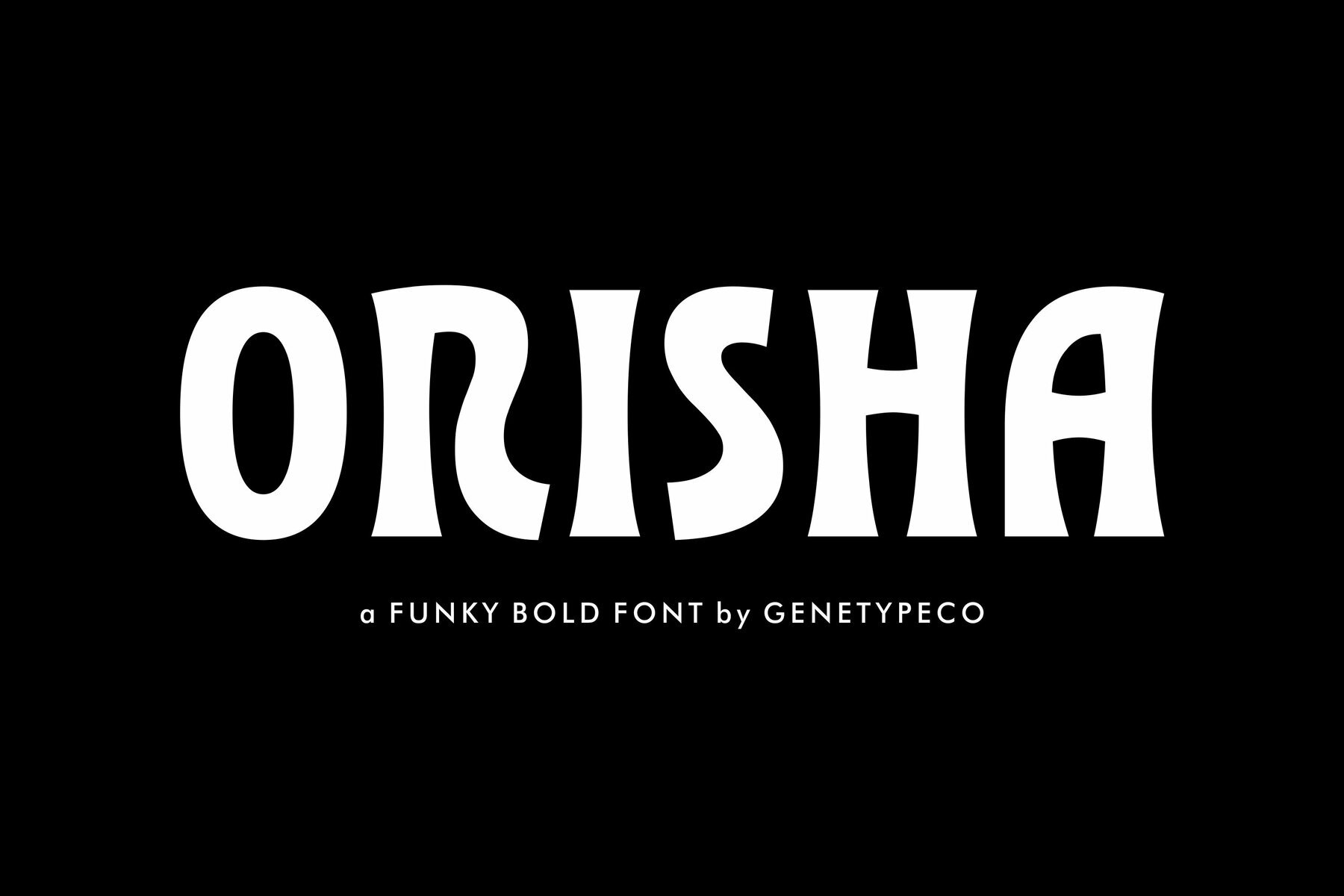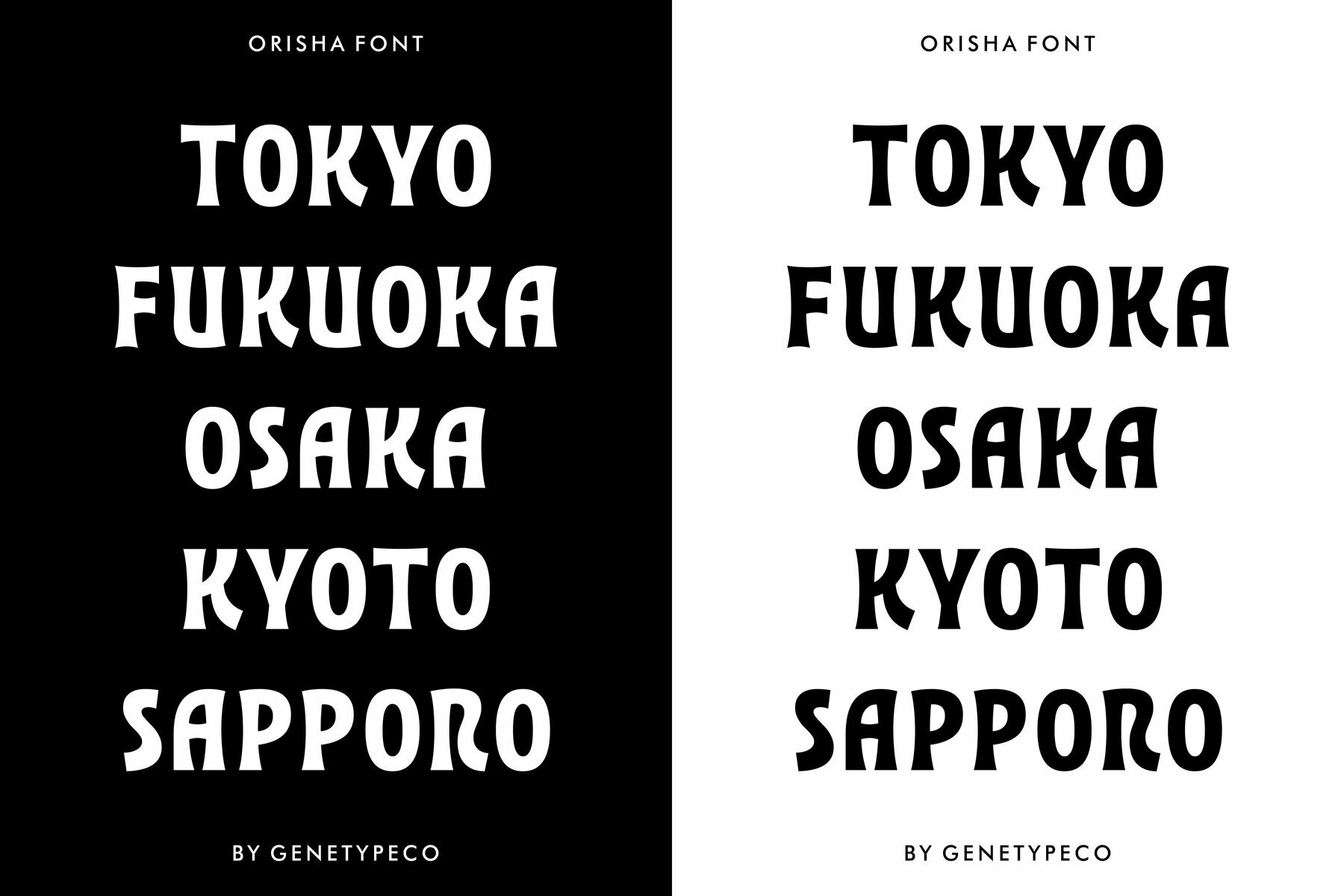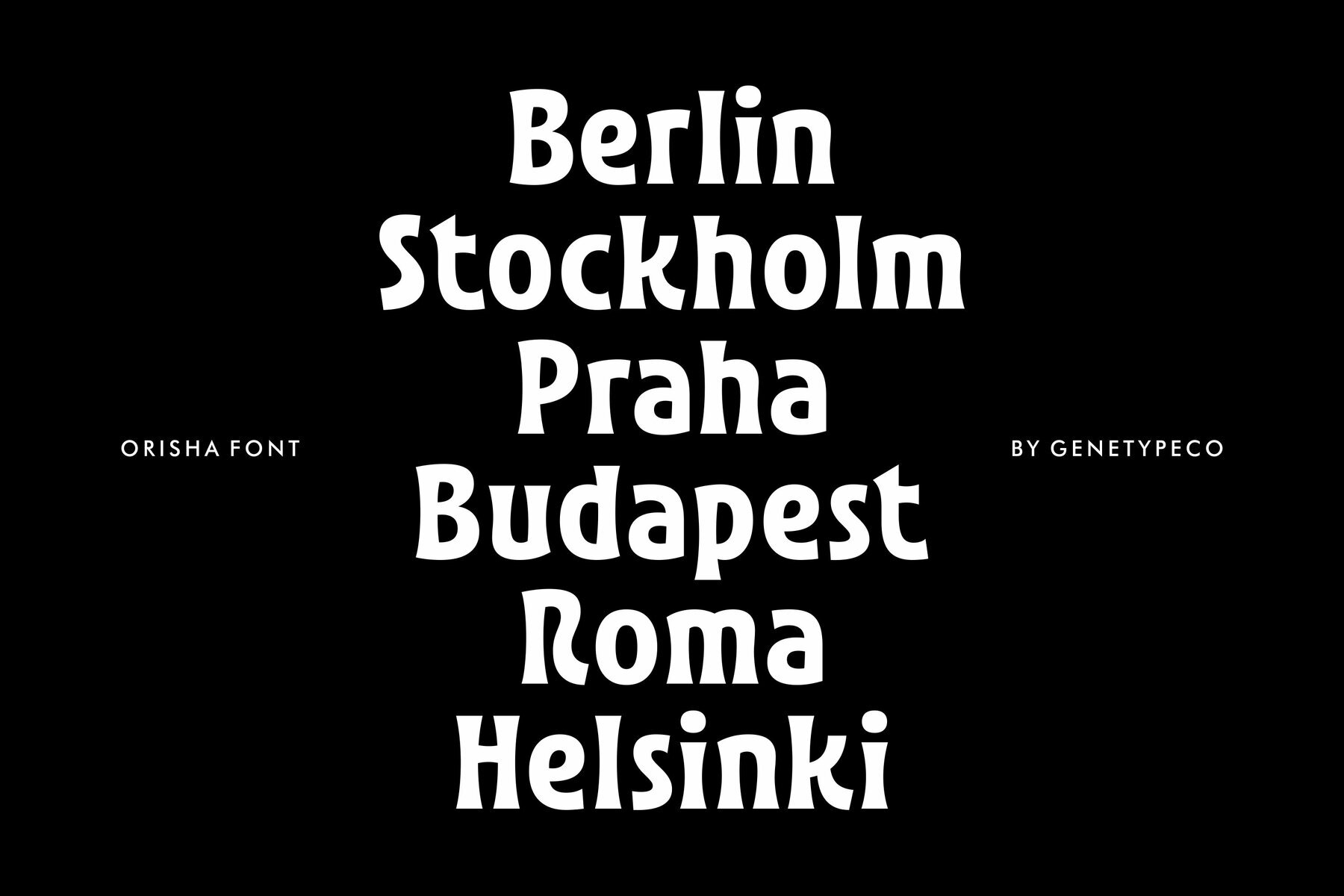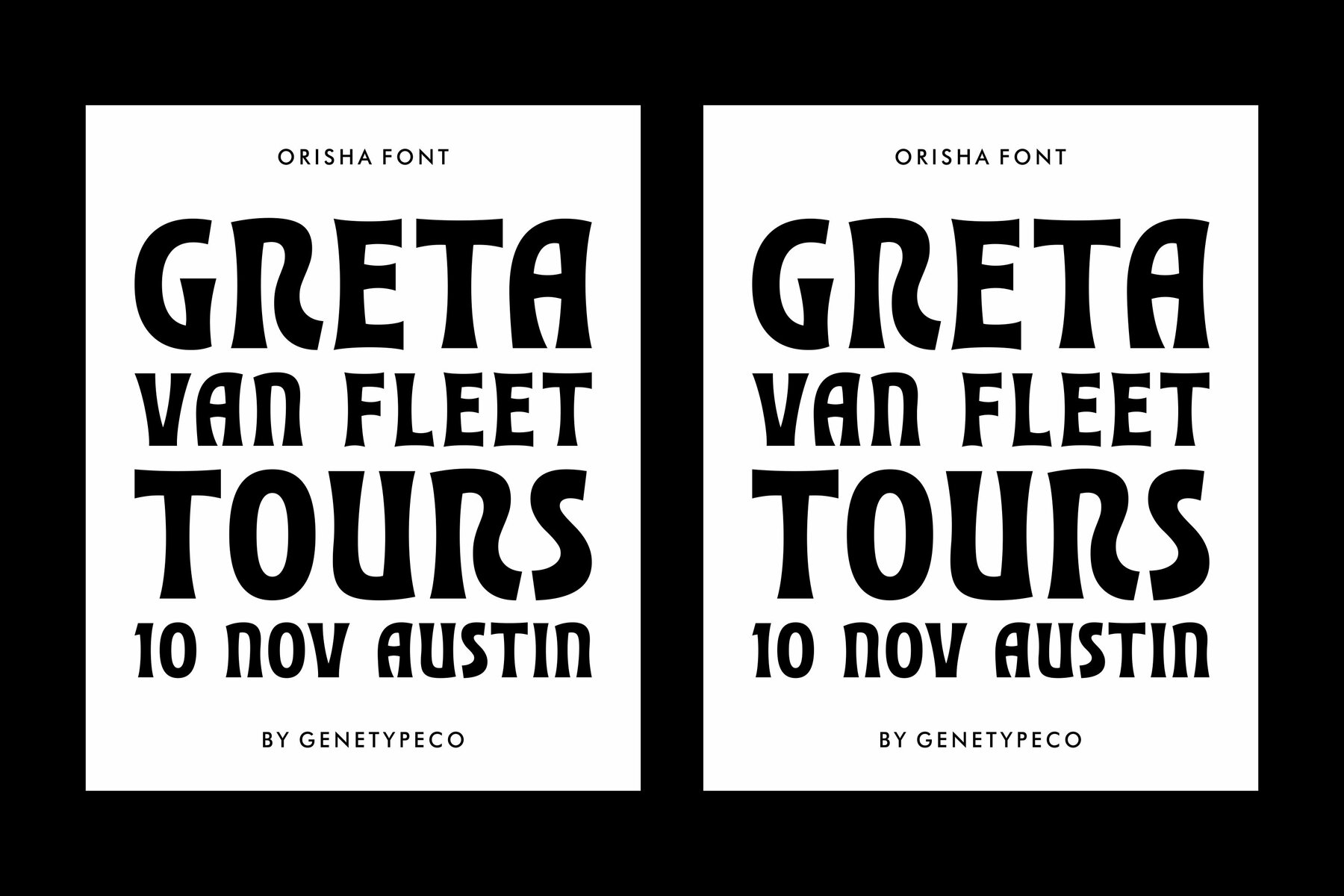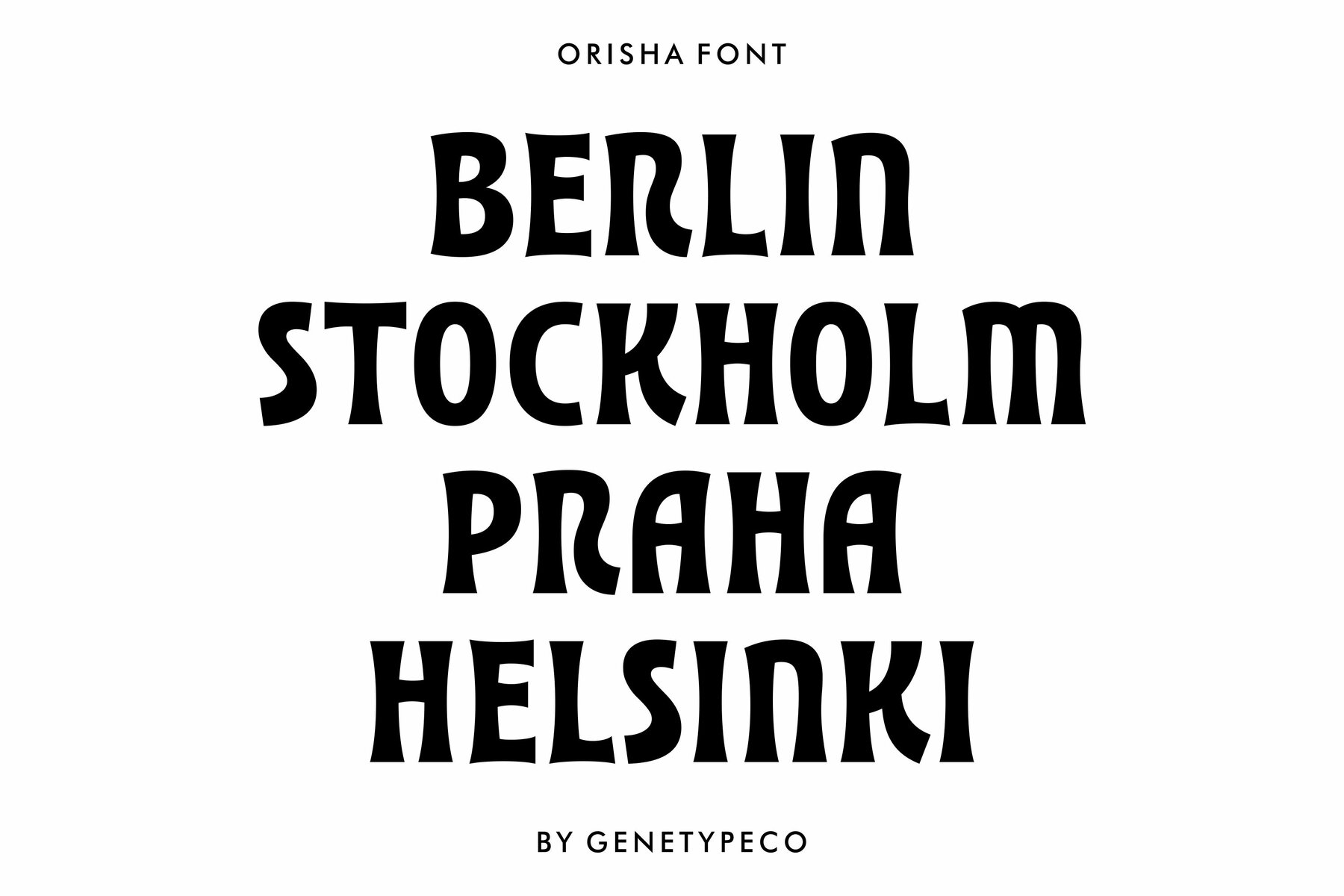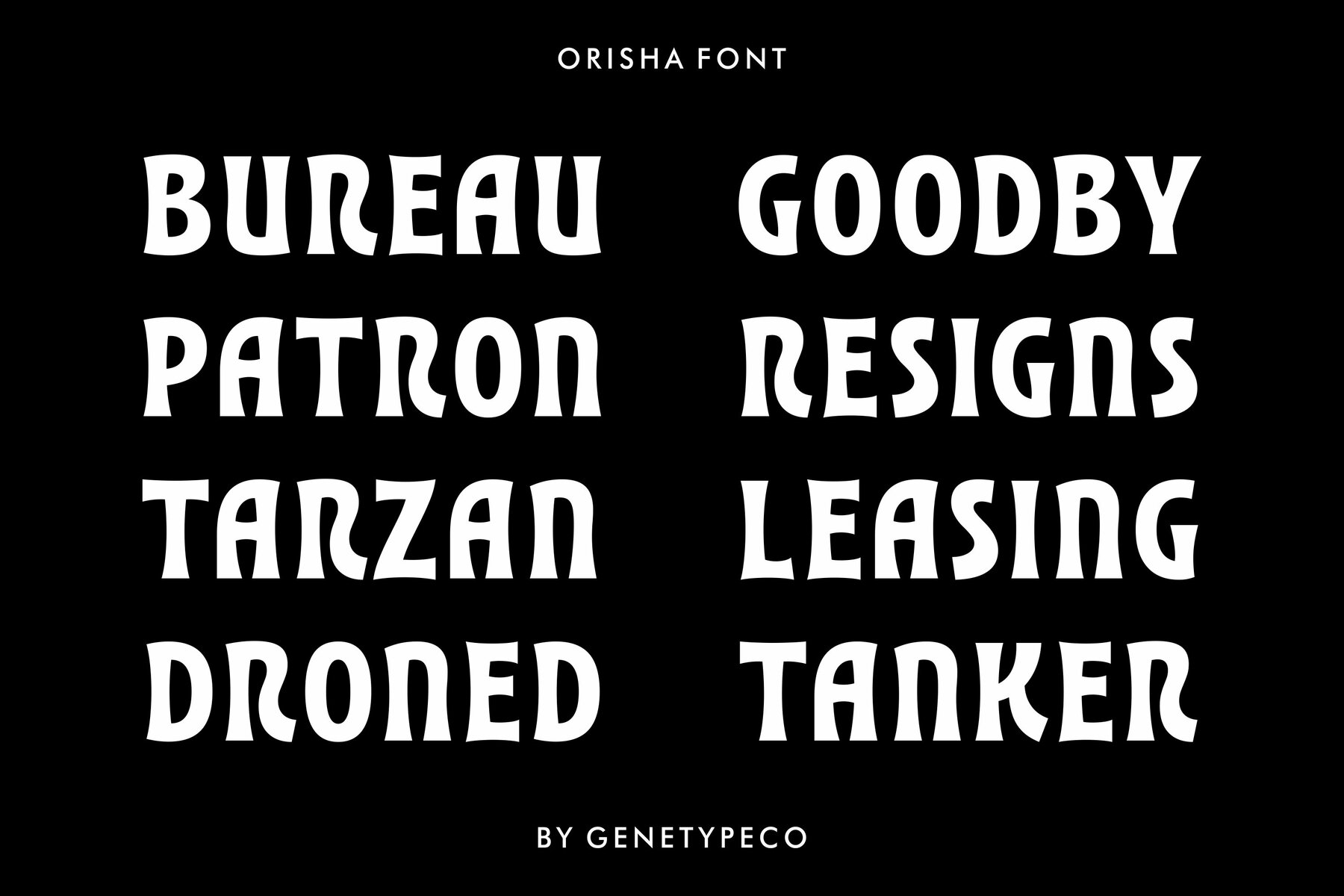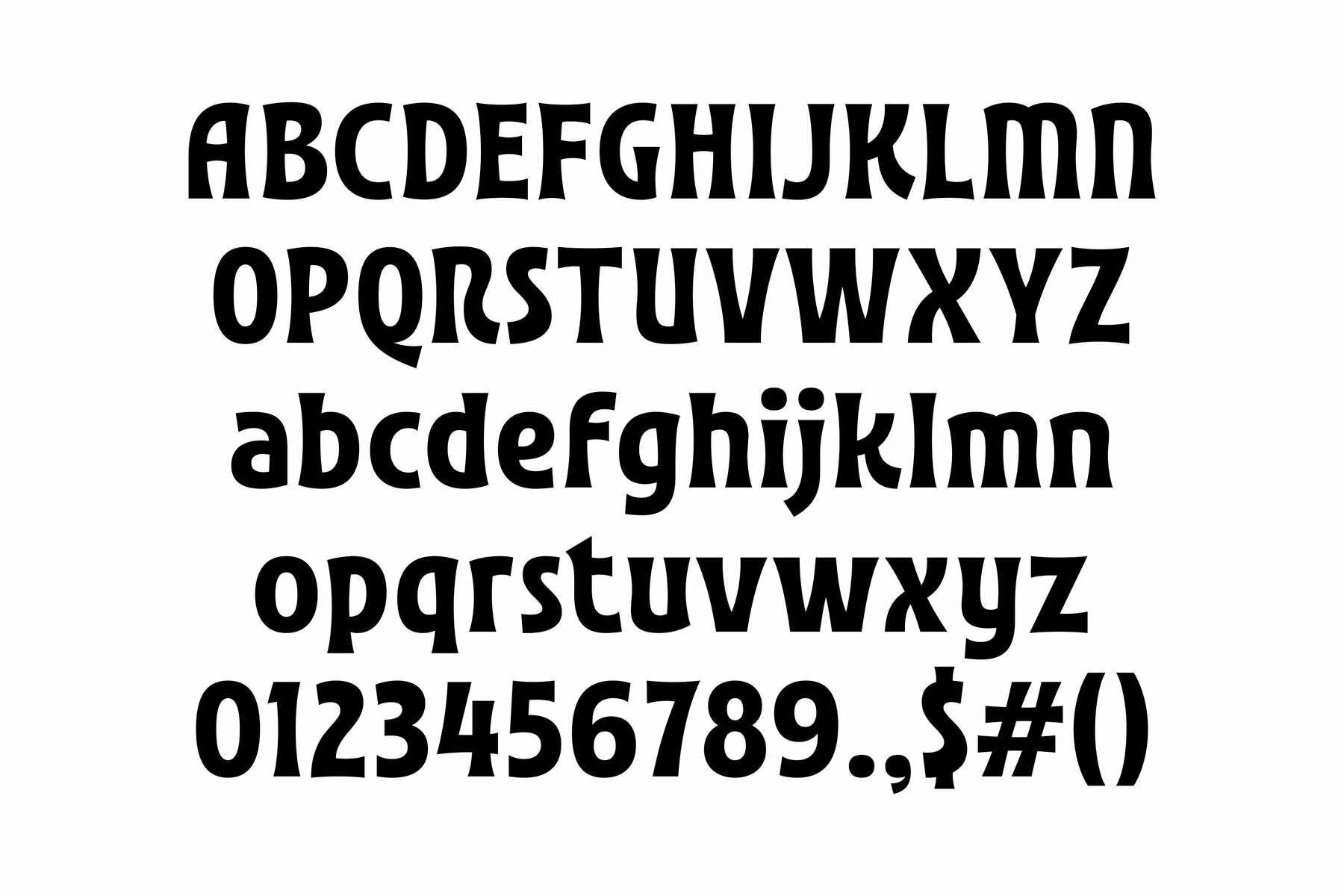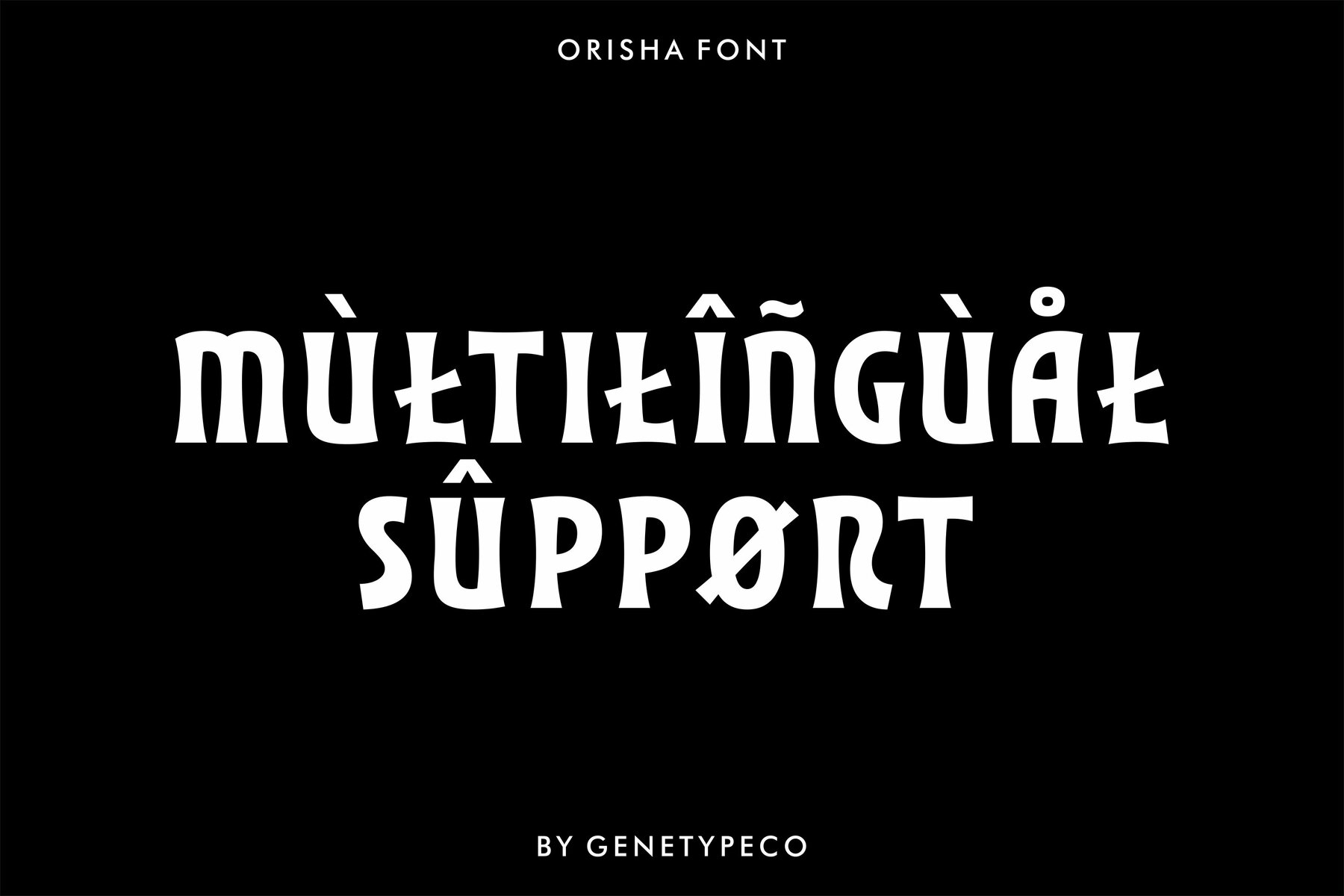
Orisha Font
ORISHA Regular
Meet Orisha, a bold and quirky display font that combines smooth, organic curves with a playful spirit. Perfect for making your words pop, this font excels in standout headlines, creative branding, posters, and packaging. With its unique charm, Orisha ensures your designs are both bold and captivating.Orisha: Quirky Display Font